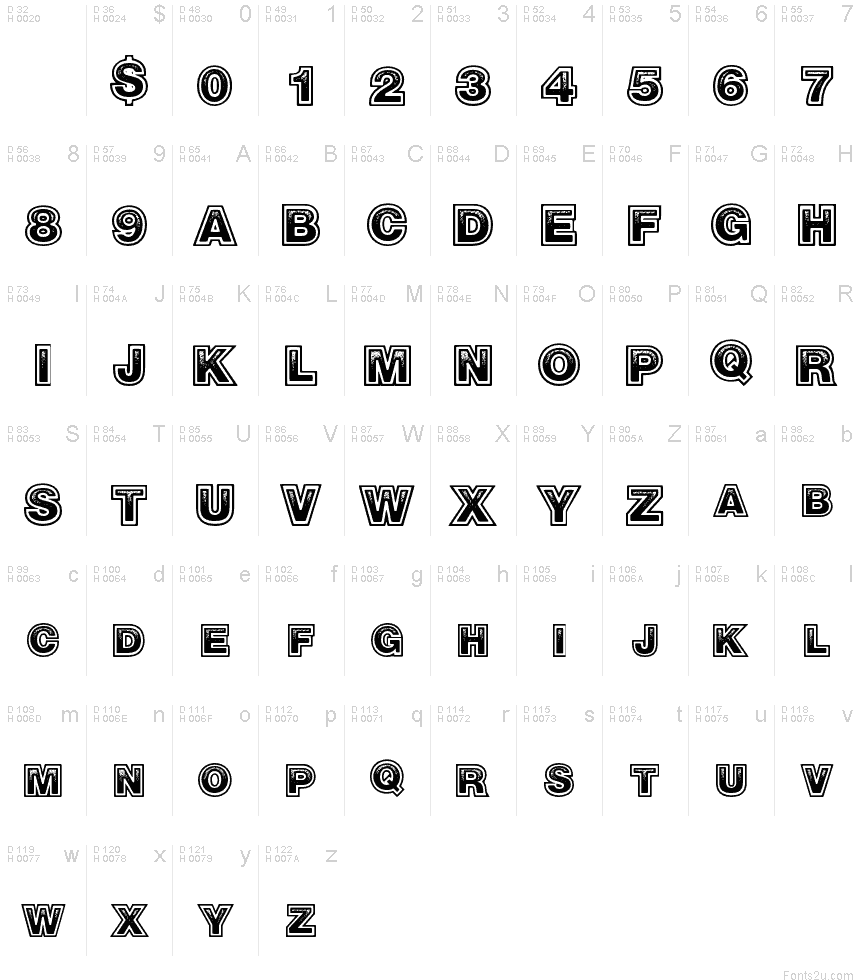
Real Trap from Xerographer Fonts is a free eroded display font with broad, weighty capitals and a hard sports-lettering silhouette. A clean outer contour surrounds a dark face cut by thin, uneven gaps, suggesting worn screen printing rather than soft decay.
Team merchandise is its strongest setting, since the sturdy shapes and scraped surface resemble lettering on a well-used jersey, and it also suits fight posters, skate graphics, and music packaging. The font is most convincing when a design needs athletic lettering that already looks battered and lived in.